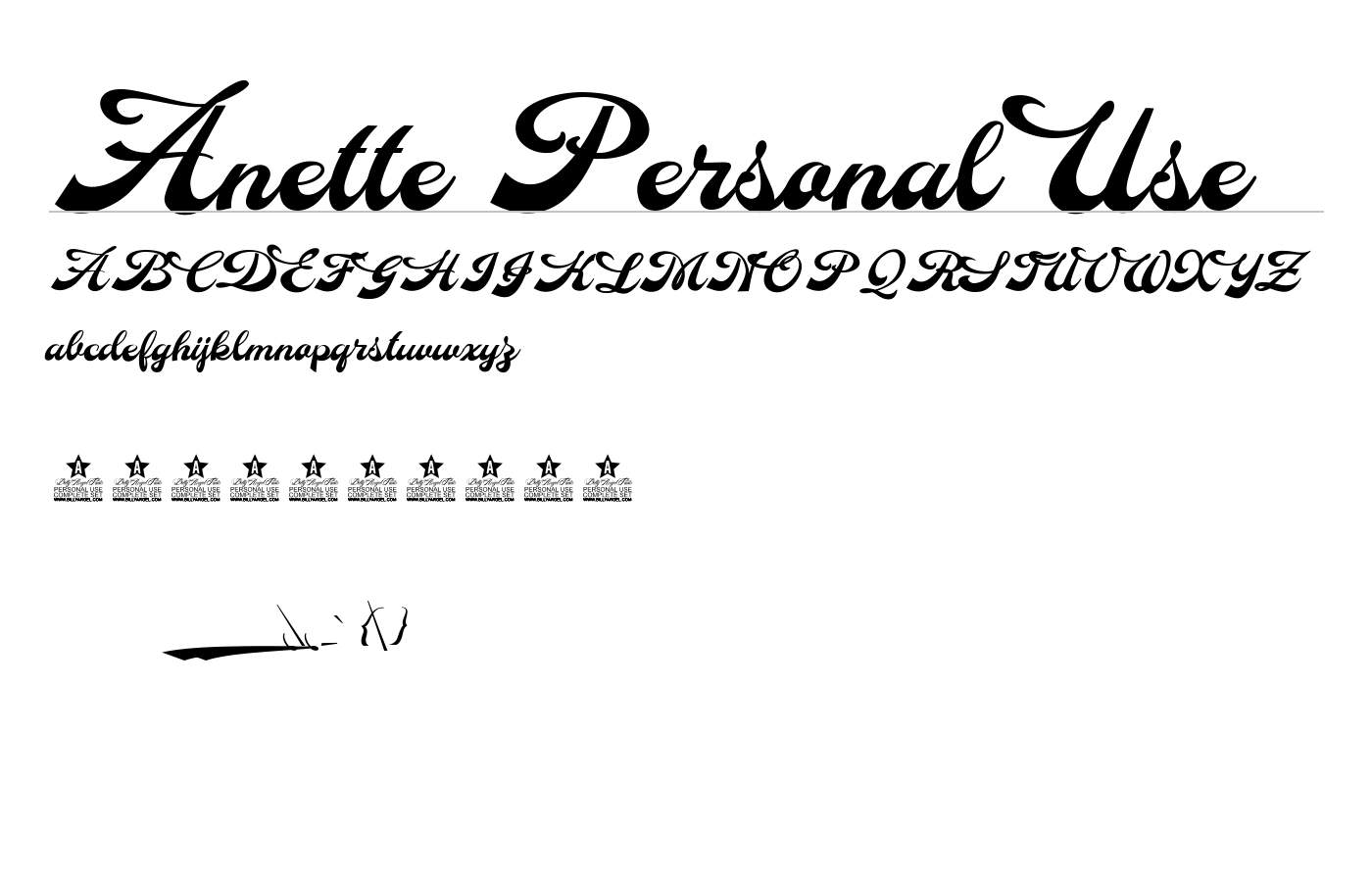
Anette Personal Use is an elegant script font with a vintage flair, featuring fluid, connected letterforms and a combination of thick and thin strokes that create a stylish contrast. Its bold weight and decorative swashes give it a sophisticated yet playful character, making it ideal for branding, invitations, and headlines where a touch of classic charm is desired. This font works best when used to evoke a sense of refinement and personality in designs that want to stand out with a graceful, handwritten feel.
Anette Personal Use Font
About Anette Personal Use Font